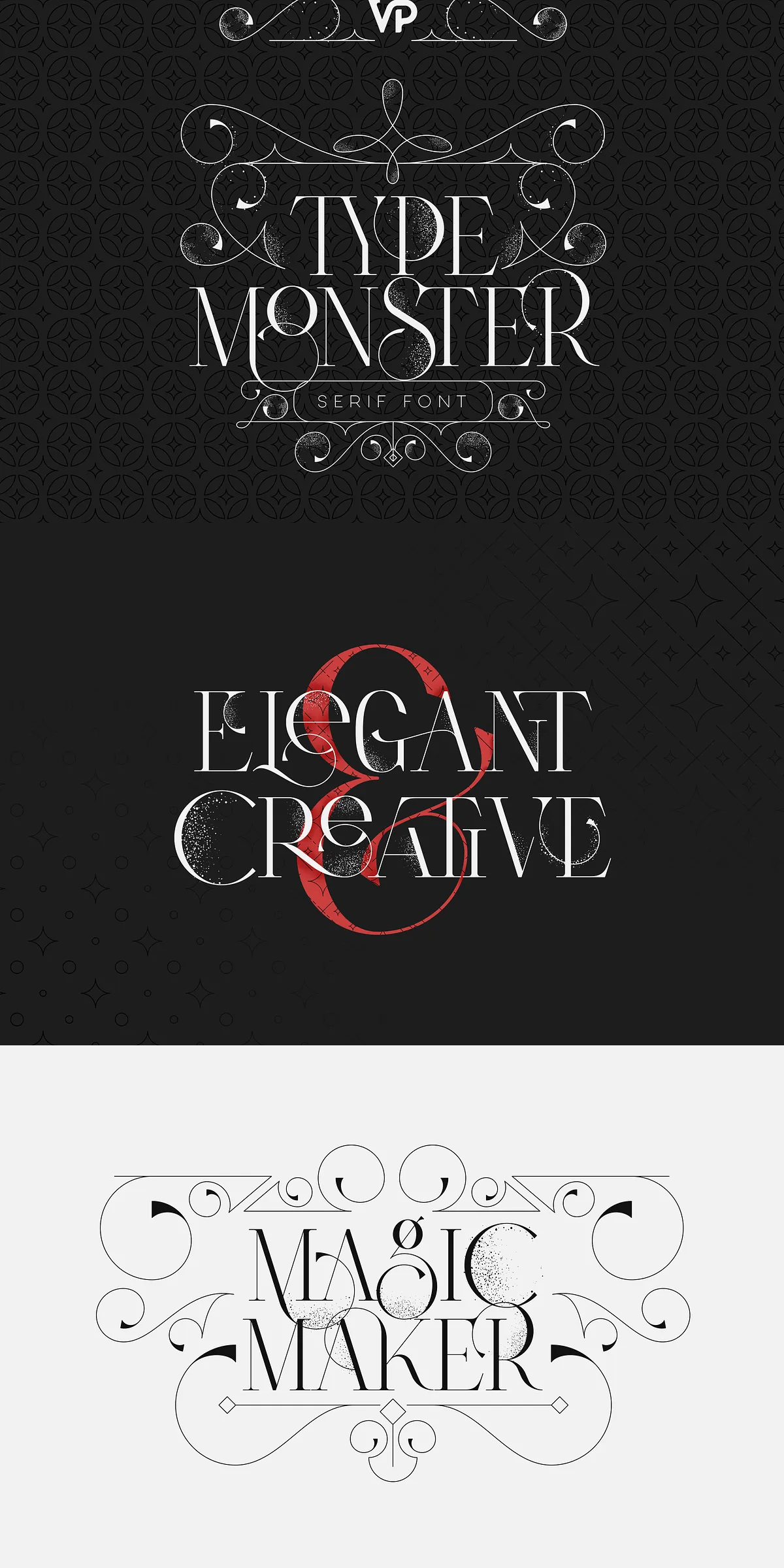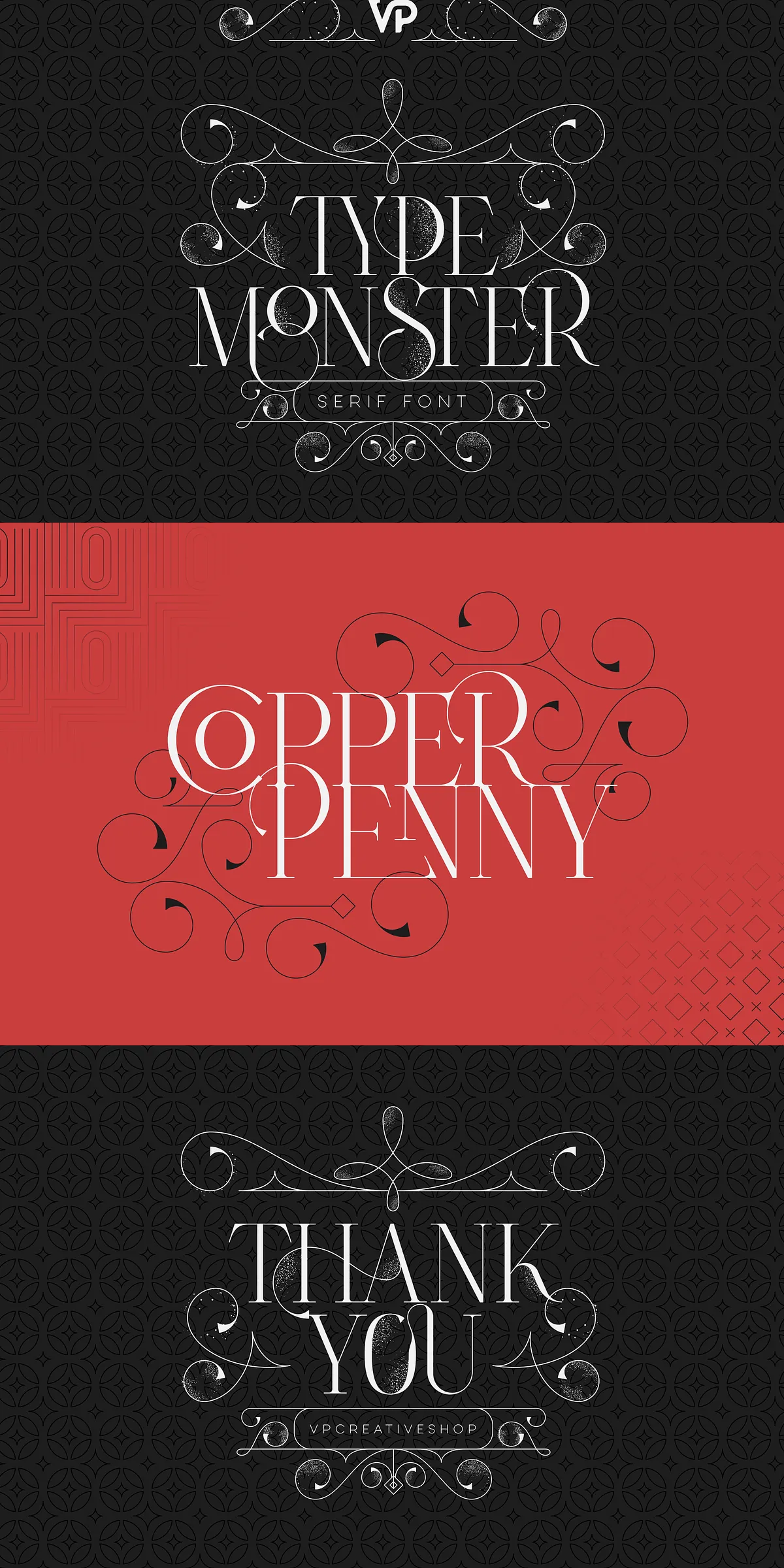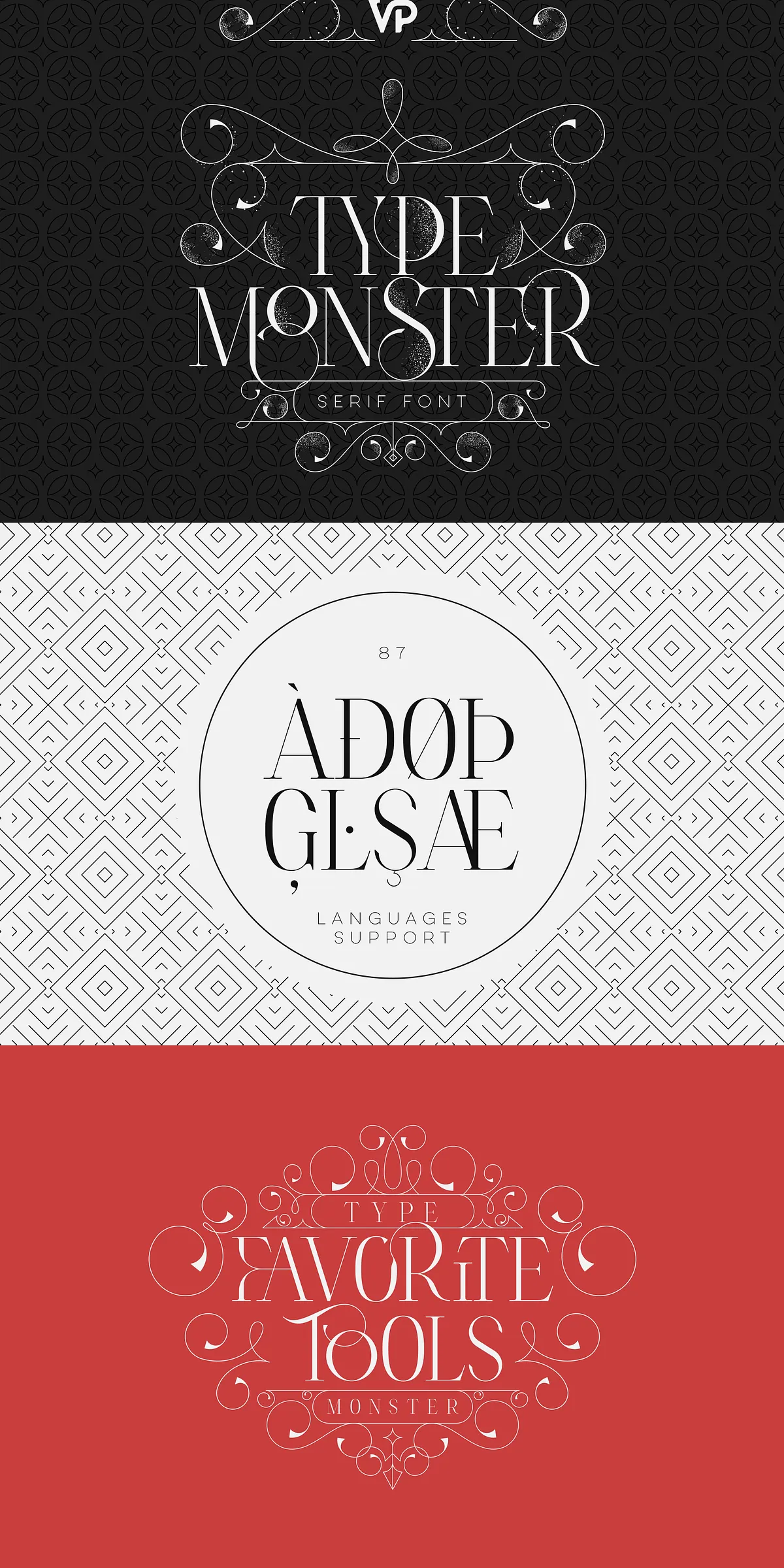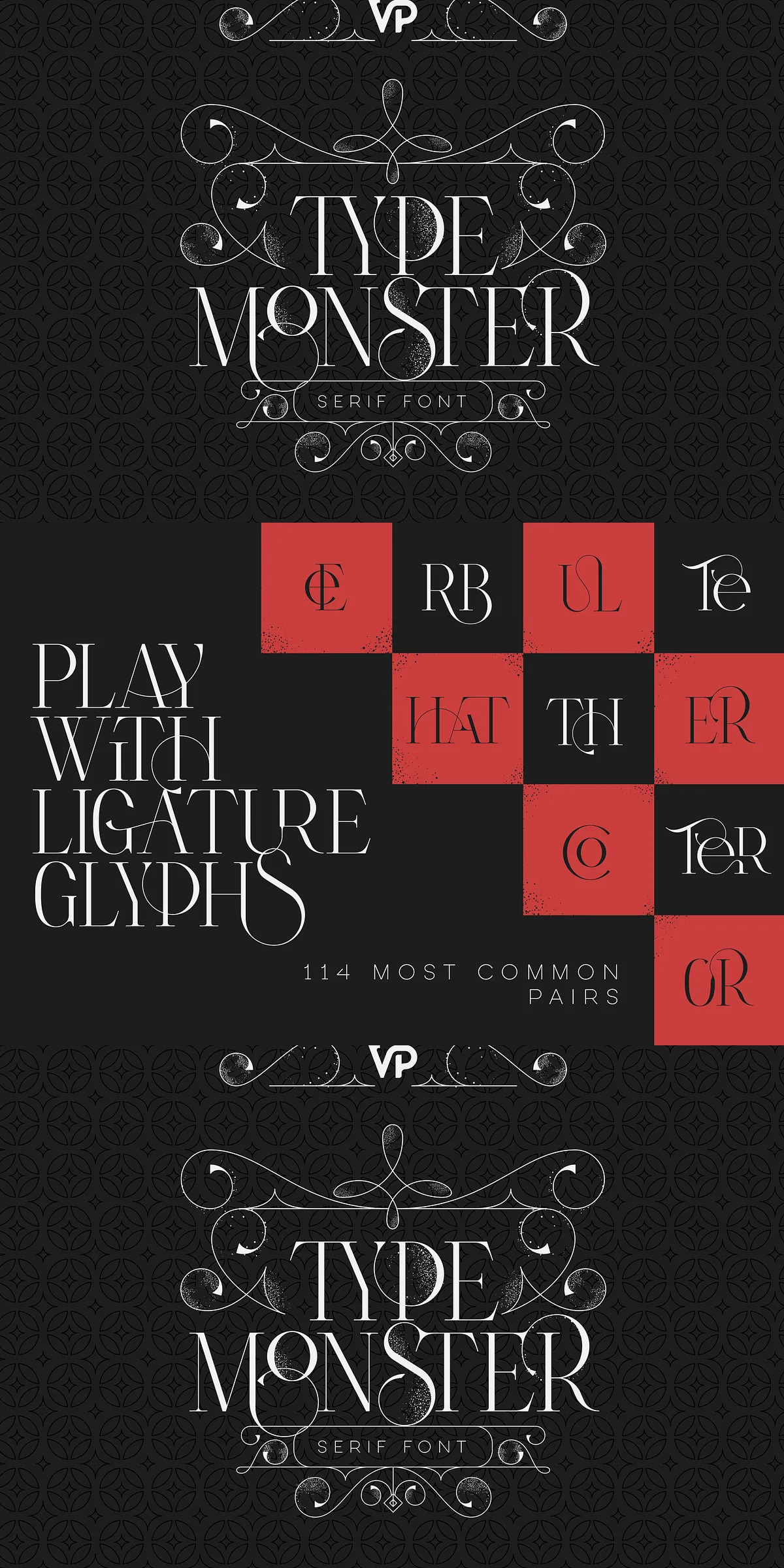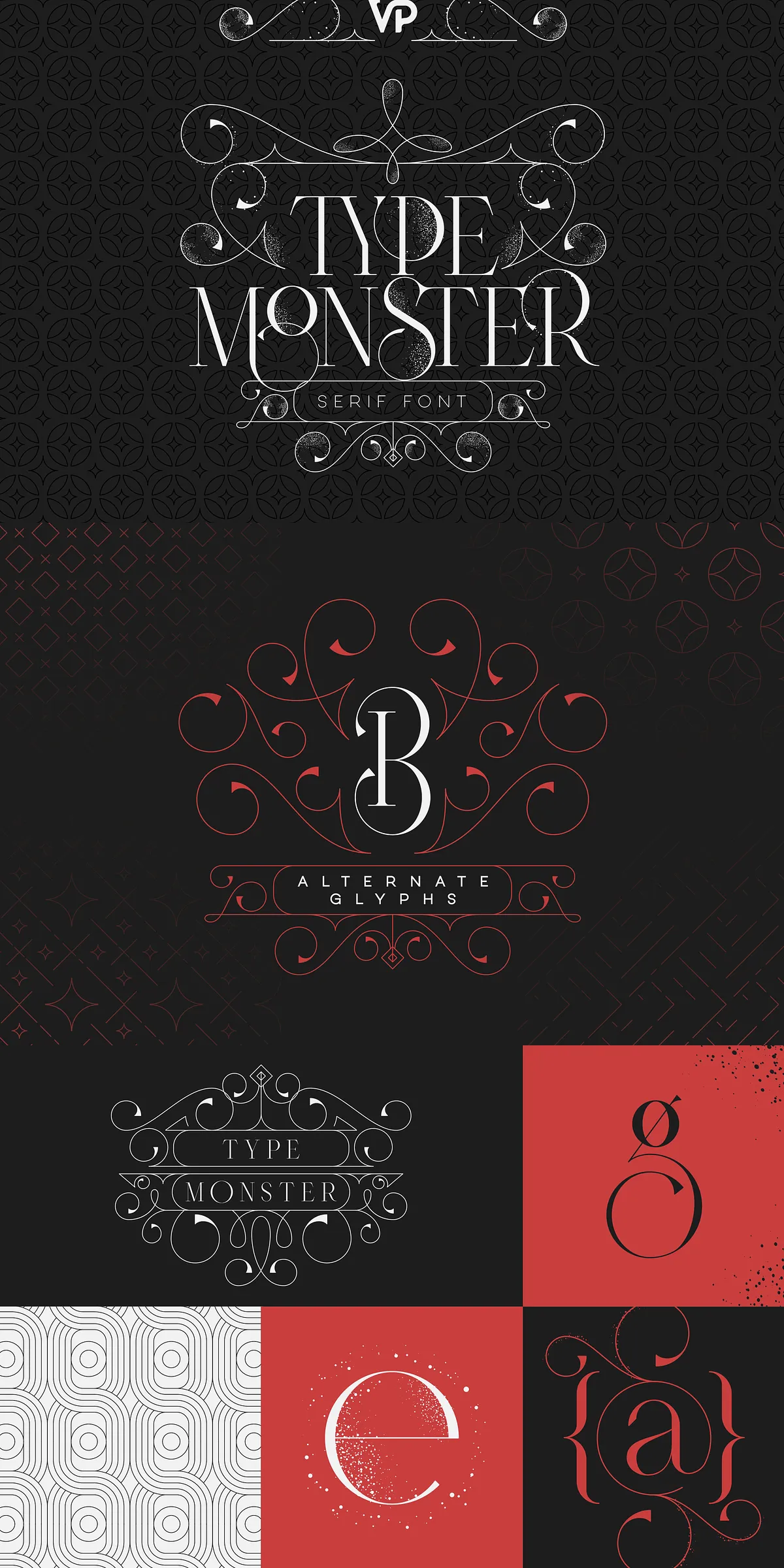
Type Monster is a meticulously crafted serif typeface that perfectly balances classic elegance with modern artistry. This font offers a versatile toolkit ideal for designers aiming to create striking and refined typography in a wide array of projects.
Extensive Ligatures and Alternate Characters for Unique Typography
At the core of Type Monster’s design are its 114 ligature glyphs, enabling smooth and elegant connections between letters. This feature adds a seamless, handcrafted quality to your text, enhancing readability and visual appeal. Beyond ligatures, the font includes a broad collection of alternate characters that provide designers the freedom to tailor their designs. Whether you seek subtle sophistication or bold custom looks, these alternates adapt to your creative vision.
A Wide Range of Stunning Design Elements
Type Monster isn’t just a font; it comes packed with a complementary collection of decorative elements to enrich your projects:
- 52 stylish swirls to elevate your typography with flair and finesse.
- 26 badges, perfect for creating logos or seal-like designs that enhance your brand identity.
- 26 glitter shapes to add sparkle and visual emphasis, ideal for standout details.
- 26 patterns that serve beautifully as backgrounds or intricate design fillers.
Global Reach with Extensive Language Support
Type Monster supports an impressive 87 languages, providing accessibility and applicability across diverse cultural contexts. From Afrikaans to Zulu, the font’s multilingual capabilities ensure your message crosses language barriers smoothly, giving you a global reach in your design work.
Perfect for Various Creative Projects
Whether you are designing branding materials, editorial layouts, wedding invitations, or personal projects, Type Monster equips you with an elegant and professional font that enhances every detail. Its expansive set of features and detailed craftsmanship make it an indispensable asset for graphic designers and typographers alike.
With Type Monster, transform your typography into captivating visual stories that leave a lasting impression across all media.